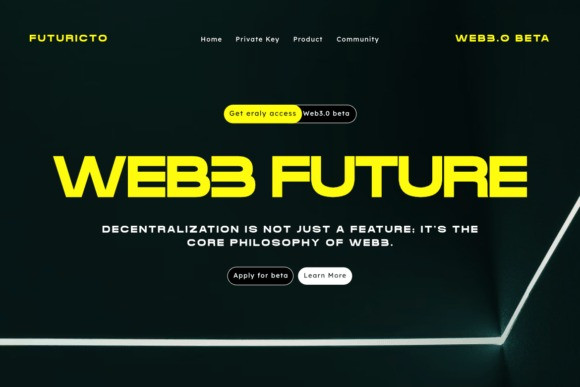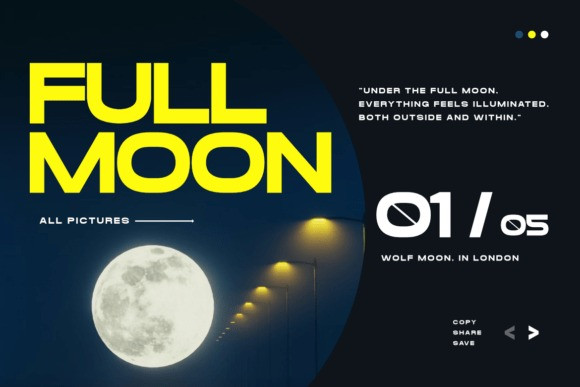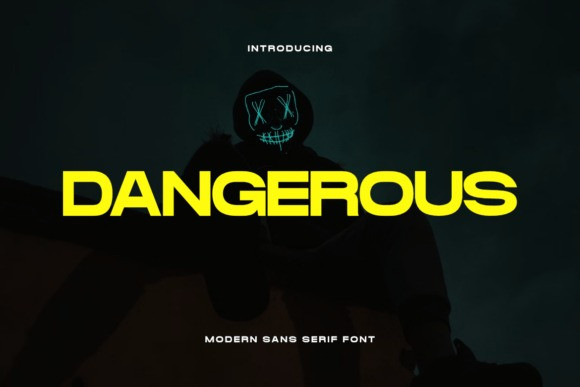
Dangerous Font is a striking, powerhouse modern bold sans serif display font built for high-visibility and impactful communication. Its wide, solid letterforms and clean geometric structure provide an assertive and contemporary aesthetic, making it the perfect choice for high-energy branding, action-oriented headlines, gaming titles, and futuristic poster designs. This versatile typeface ensures your message stands out with confidence, providing a sleek yet aggressive look that is both professional and unforgettable.